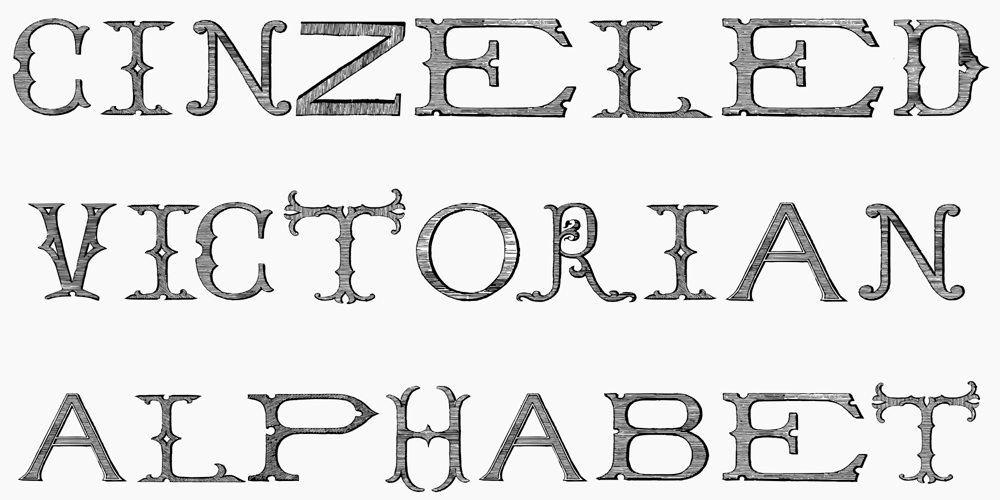
Cinzeled Victorian Alphabet
Cinzeled Victorian Alphabet font
Cinzeled Victorian Alphabet Font Family was designed by Paulo W and published by Intellecta Design. Cinzeled Victorian Alphabet contains 1 styles and family package options. Cinzeled Victorian Alphabets is a bold and imposing display font. Add it to your creative ideas and notice how it makes them stand out! Letters crafted to obtain the cinzeled style from the press works from XVIII and XIX centurys.